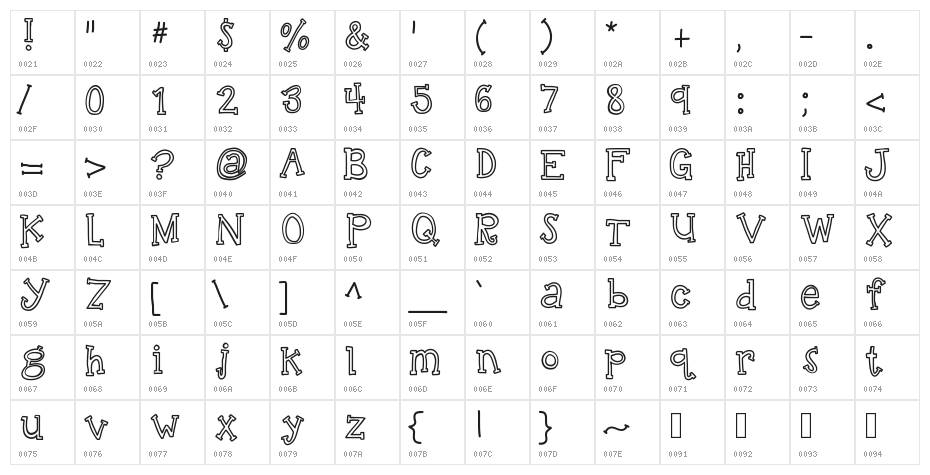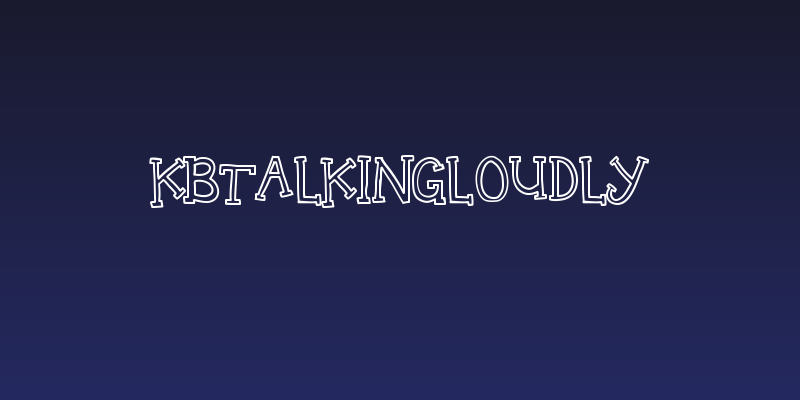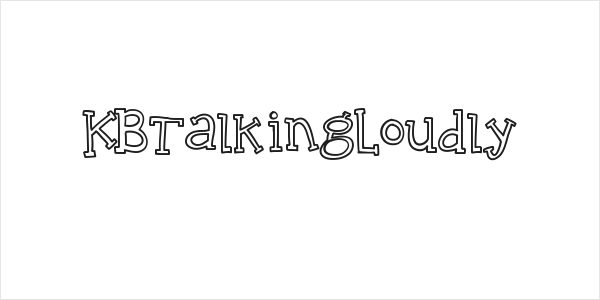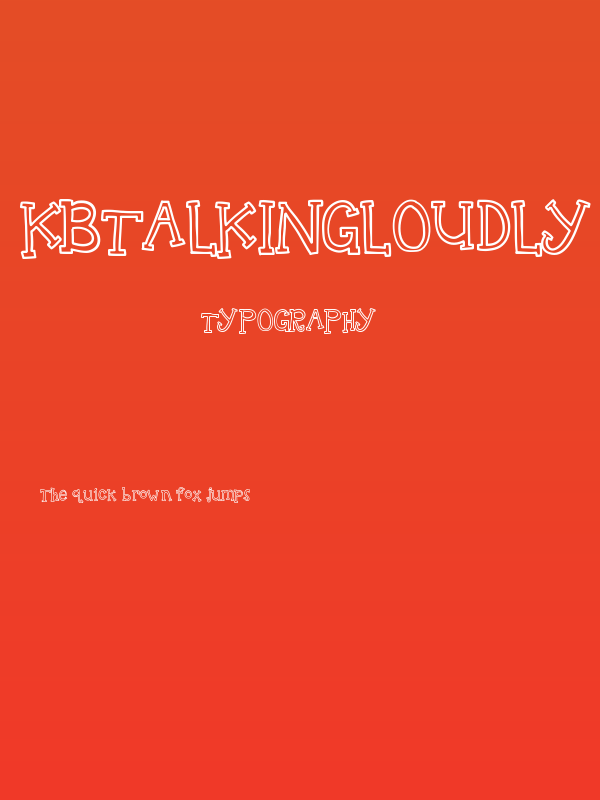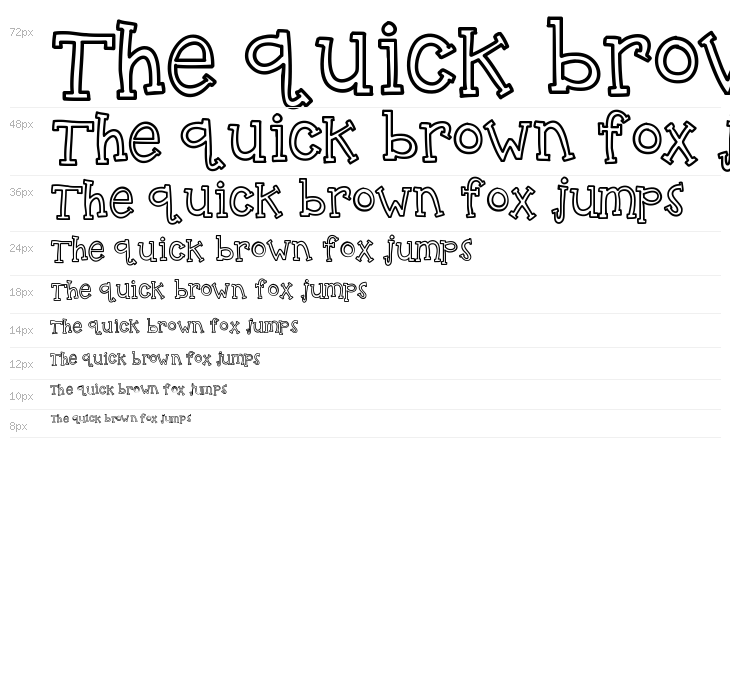
KBTalkingLoudly Font
KBTalkingLoudly Description
This font features a playful and bold outline style, characterized by its thick, cartoon-like strokes and whimsical design. Each letter is outlined, giving it a three-dimensional effect that stands out. The uppercase and lowercase letters maintain a consistent style, with slightly irregular shapes that add to its charm. Numbers and special characters are designed with the same playful aesthetic, making this font ideal for creative and informal projects. Its unique style captures attention and adds a fun, lively touch to any design.
| Overall Style | Playful, Cartoonish |
| Proposed Projects | Ideal for children's books, comic strips, playful branding, and creative posters. |